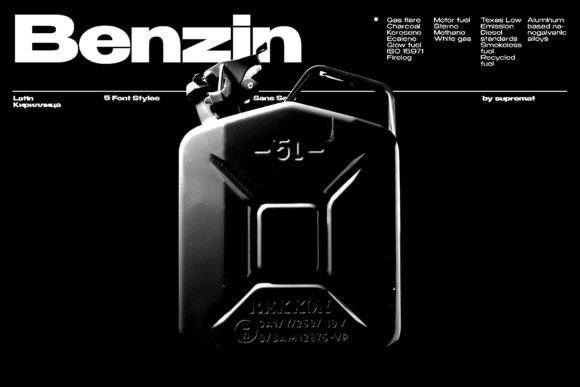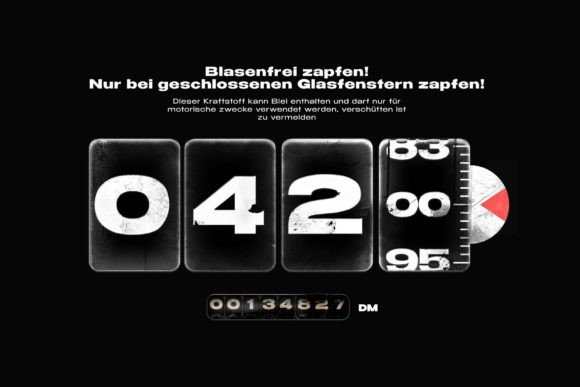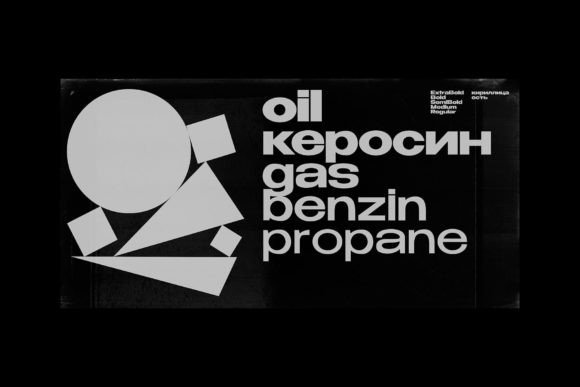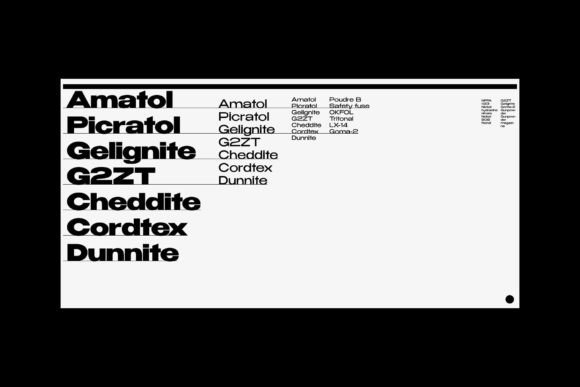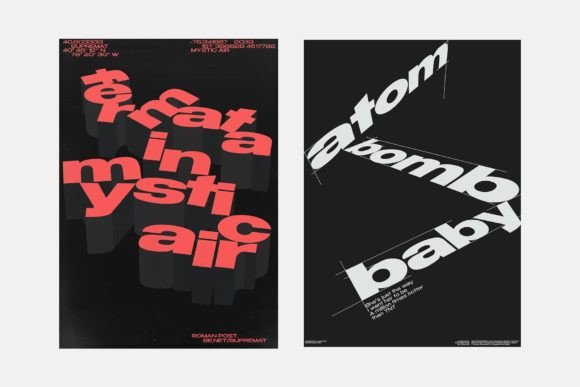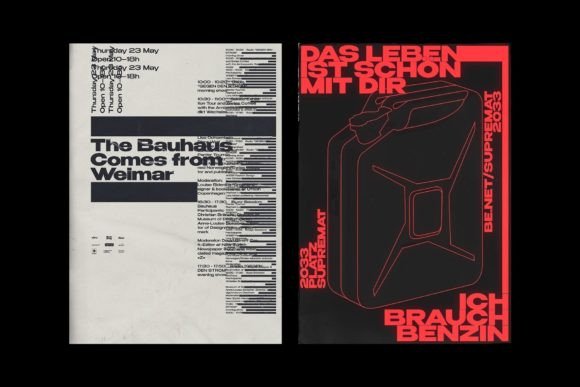
When Typography Meets Convenience
Have you ever stared at a blank page, desperately searching for the perfect font to convey your message? The struggle is real, especially when you’re working on a tight deadline. But what if I told you there’s a font that can take care of itself, adjusting to your needs without breaking a sweat?
Enter Benzin Font, a geometric sans serif family that’s as versatile as it is beautiful. With 5 weights to choose from, you can effortlessly switch between bold headlines and thin paragraphs, without worrying about kerning. This thoughtful design ensures that your text looks polished and professional, no matter the size or style. For designers, Benzin Font is a game-changer, offering a level of convenience that’s hard to find in other fonts. With Benzin Font, you can focus on what matters most – bringing your creative vision to life.
Benzin Font Key Features
- Font Family: A sans-serif font with a modern and edgy feel, ideal for titles and headings.
- Unique Characteristics: Distinctive geometric shapes and bold lines give the font a striking appearance, perfect for catching attention.
- Font Style Options: Includes regular, bold, and italic styles, allowing for versatility in typography and design.
- Language Support: Supports a wide range of languages, including Latin, Cyrillic, and Greek scripts, making it suitable for global applications.
Benzin Font Review
I recently had the chance to work with the Benzin Font, and I must say it’s a unique and intriguing typeface. Here are my honest thoughts on what works well and what doesn’t.
- The Benzin Font has a bold and edgy feel that makes it perfect for titles, headings, and other display text.
- The font’s geometric shapes and rough textures give it a gritty, industrial vibe that’s perfect for modern designs.
- The font is highly customizable, with a wide range of weights, styles, and effects available.
- The font can be quite difficult to read in smaller sizes or at a distance, due to its bold and rough texture.
- The font’s unique style may not be suitable for all types of designs, such as formal or traditional projects.
- The font’s many weights and styles can make it overwhelming to choose the right one for a particular project.
Overall, I think the Benzin Font is a great choice for designers who want to add a touch of edginess and modernity to their projects. While it may have some limitations, the font’s unique style and high level of customization make it a valuable addition to any designer’s toolkit.
Tips for Getting the Most Out of Benzin Font
To get the most out of the Benzin font, try the following:
- Experiment with different font sizes and combinations to create visual interest
- Pair Benzin with other bold or distressed fonts for a unique look
- Use Benzin for headings or titles to add a touch of sophistication
The Benzin font is commonly used in:
- Rock and metal music promotional materials Alternatives to Benzin Font for Designers
Montserrat is a sans-serif font designed by Julieta Ulanovsky. It is a modern and sleek font that is perfect for use in digital interfaces, logos, and branding materials. Montserrat is similar to Benzin Font in its clean and minimalist design, but it has a more geometric and industrial feel to it.
When to use: Montserrat is ideal for digital products, apps, and websites where a modern and clean look is required.
Open Sans is a sans-serif font designed by Steve Matteson. It is a highly legible and versatile font that is perfect for use in a wide range of applications, from body text to headings. Open Sans is similar to Benzin Font in its clean and simple design, but it has a more rounded and friendly feel to it.